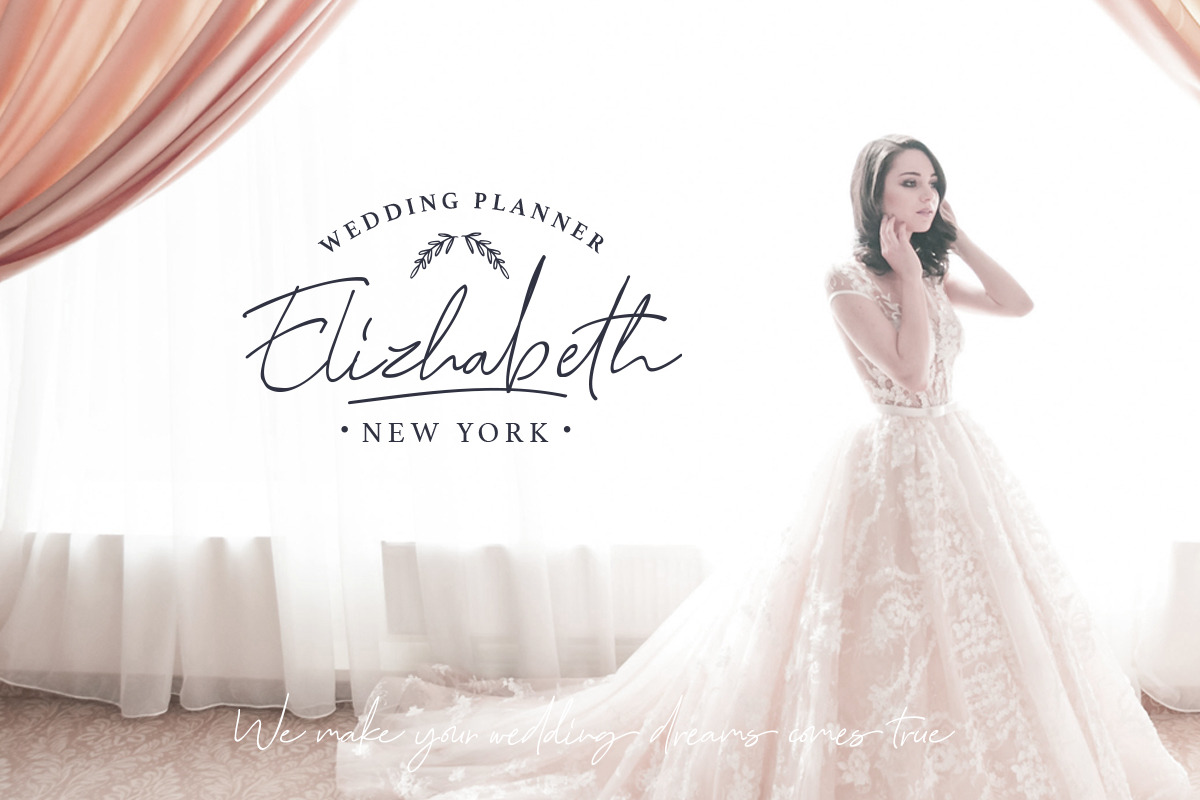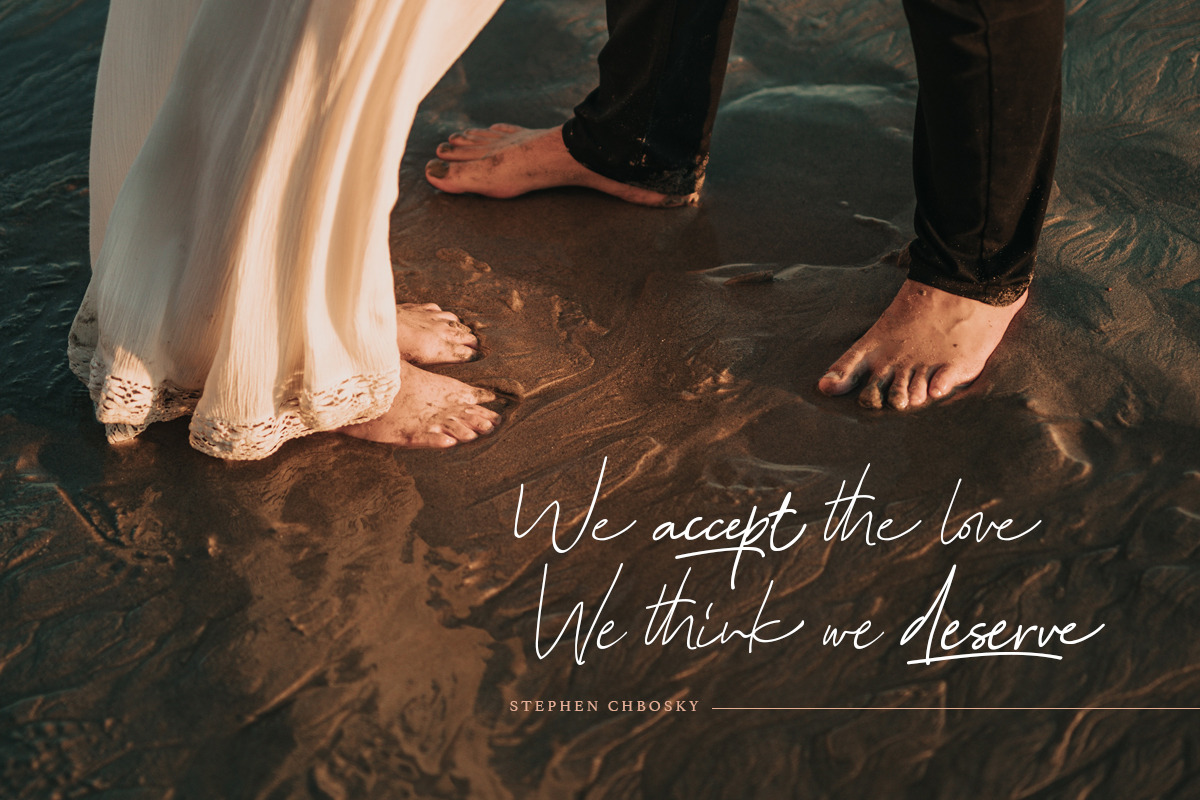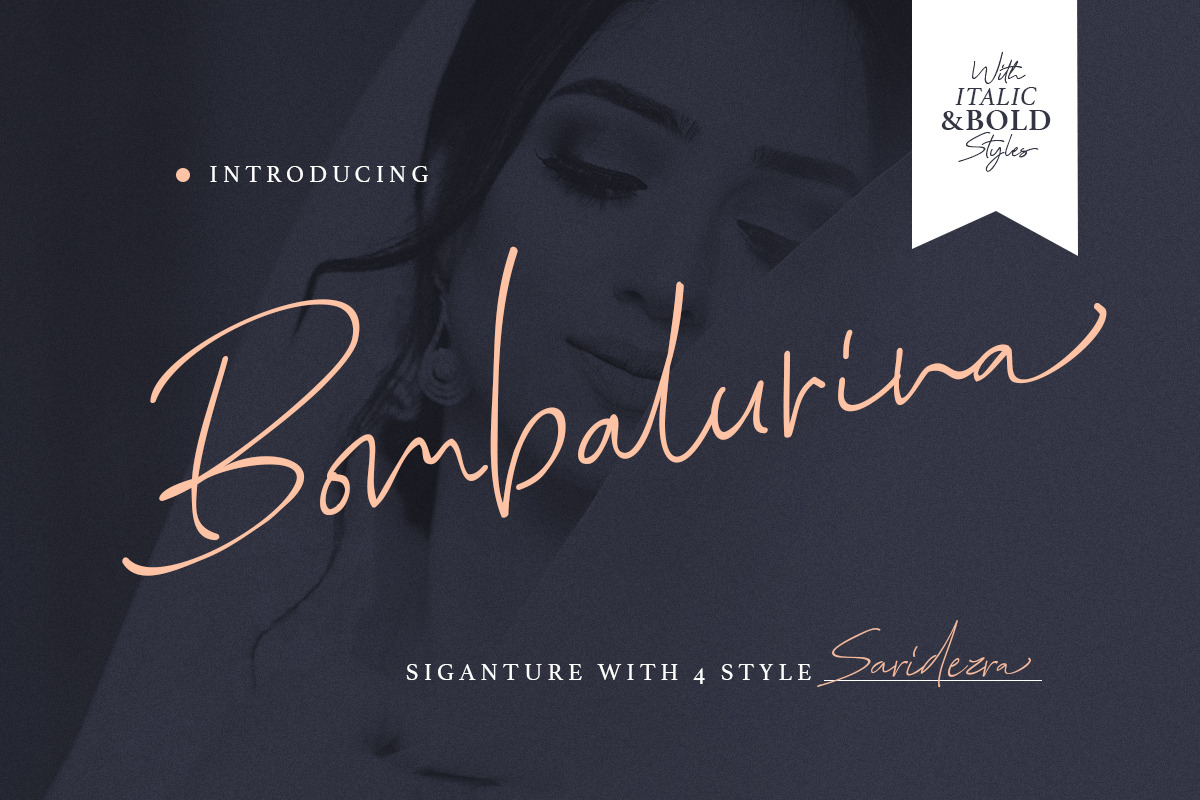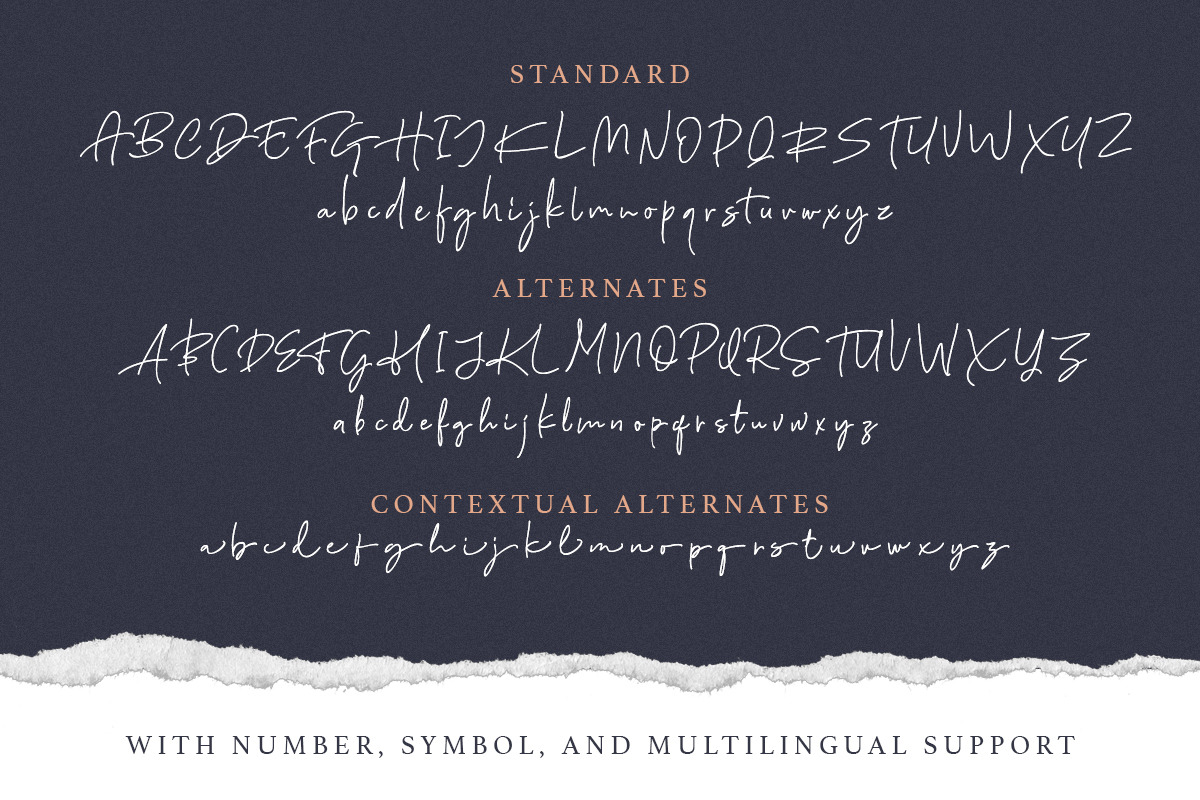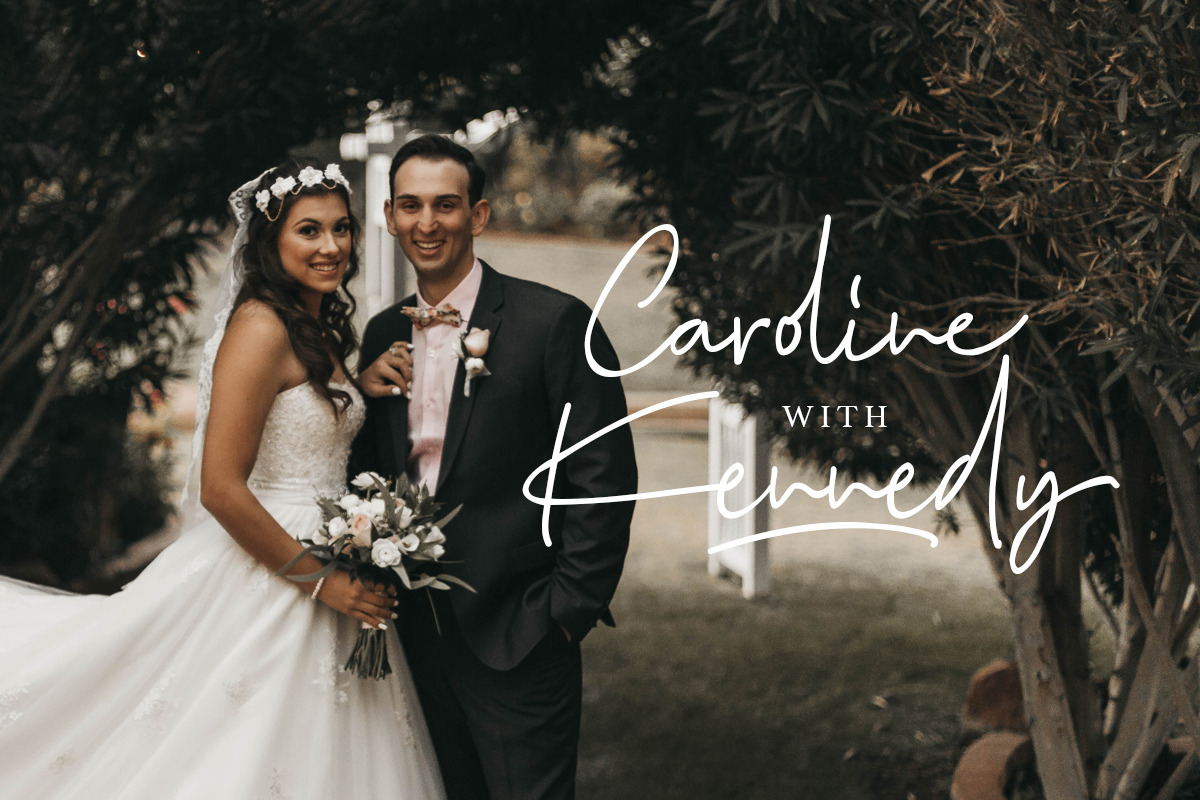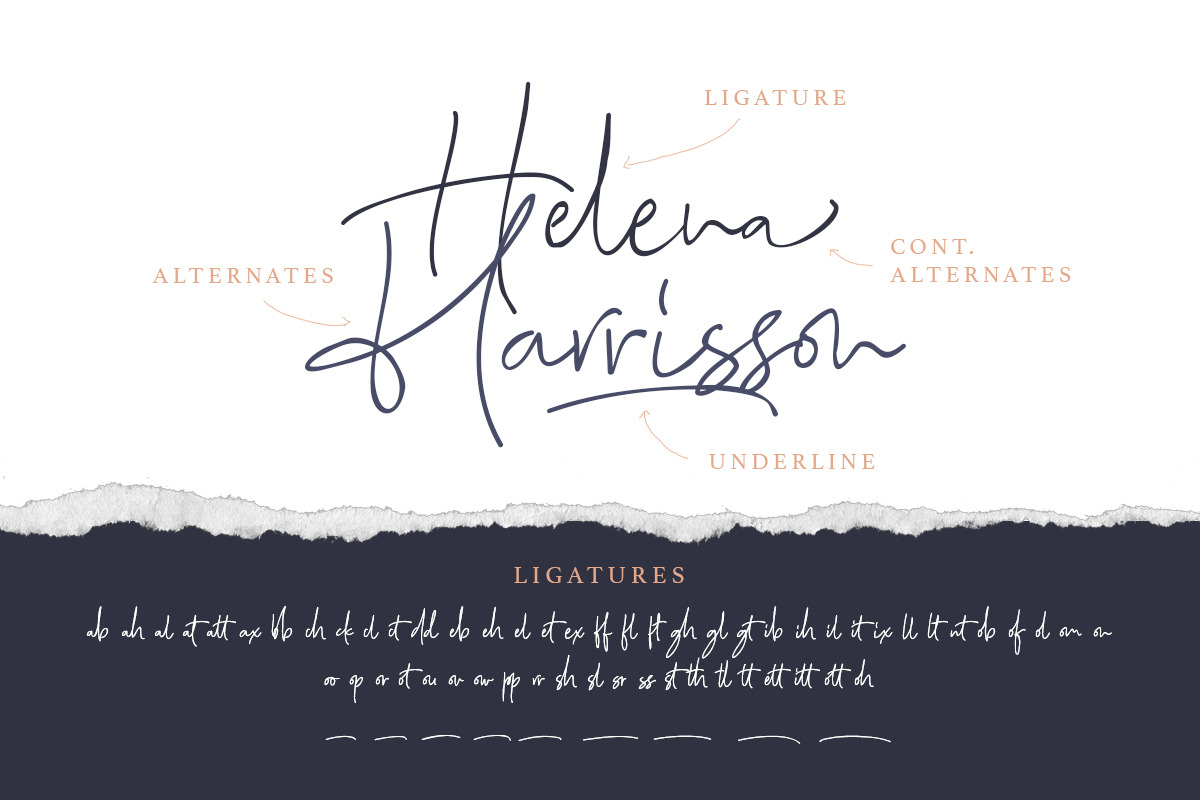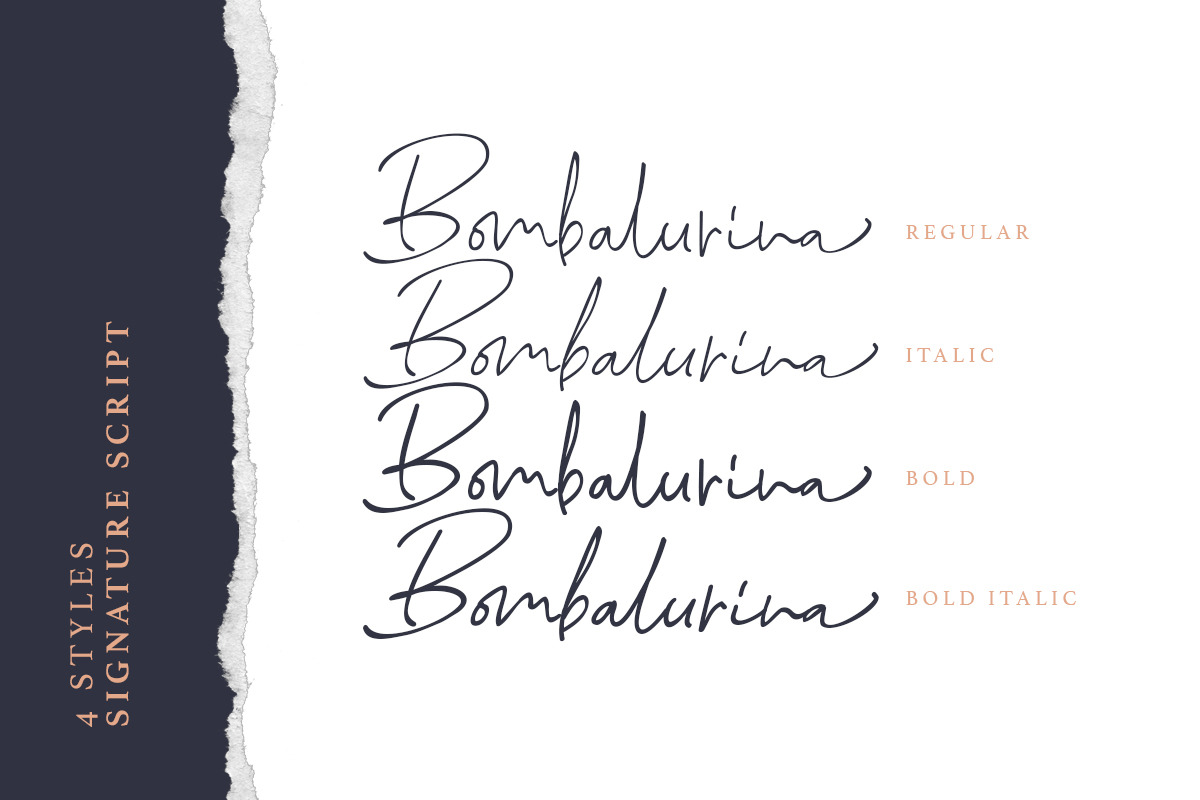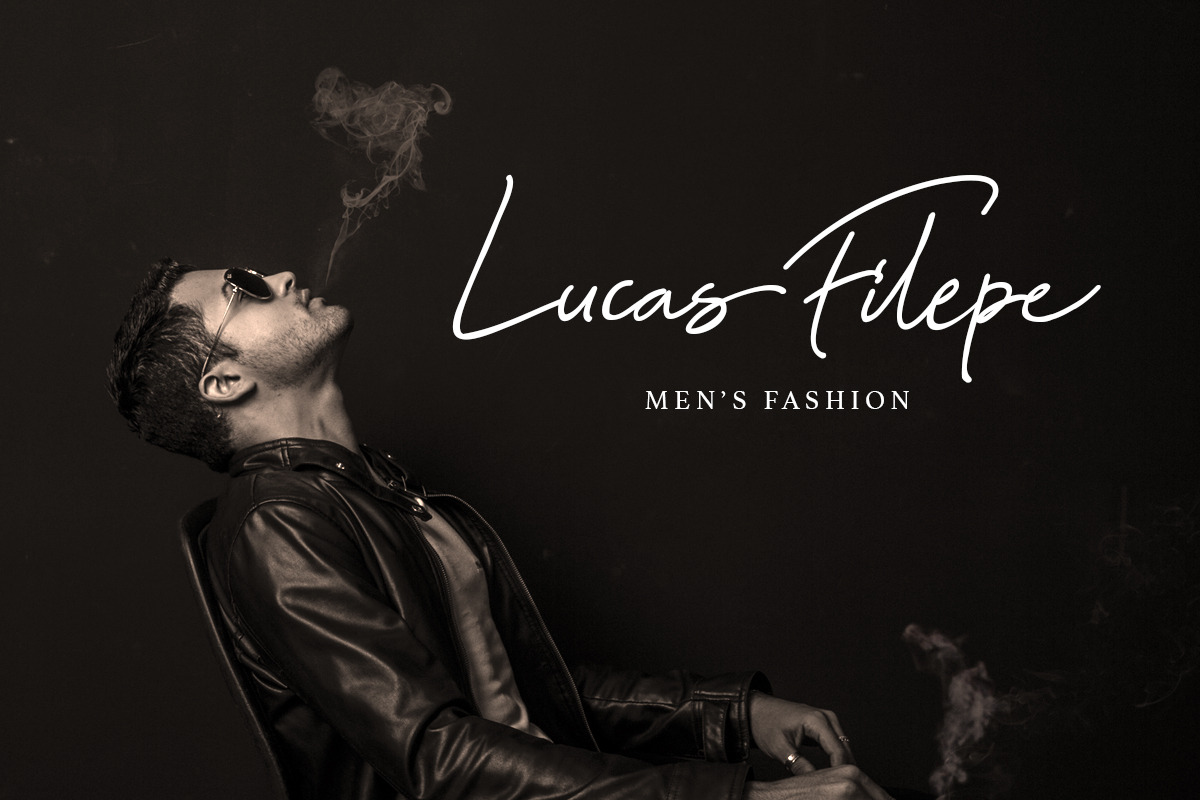
Bombalurina Script (4 Fonts)
Introducing, Bombalurina Script Family, make your own signature!
Bombalurina Script Family contain 4 FONTS including alternates, Ligatures, Swash, and also Underline. Also comes with italic, bold, and bold italic. Bombalurina Script is a signature font that you can use to make a logo for branding, beautiful fashion design, or handwritten quote. Also already PUA Encoded.